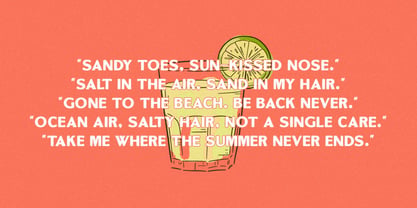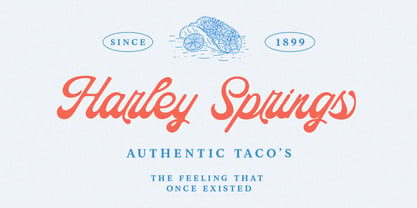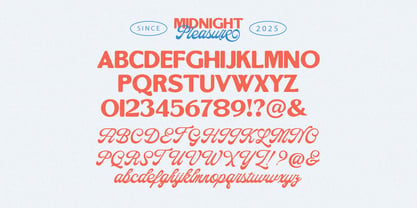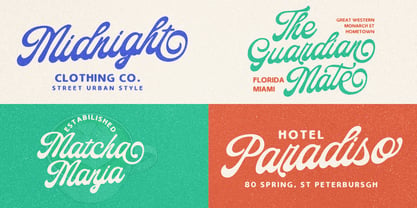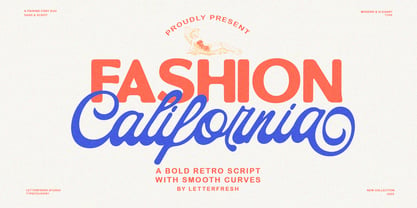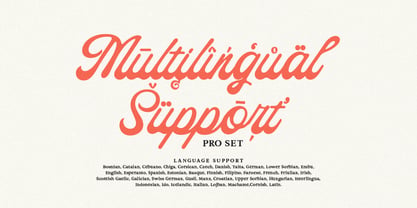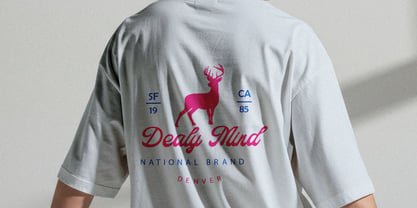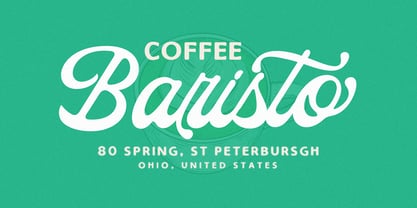
Fashion California Script
by Letterfreshstudio
The Fashion California Script Font Family was designed by Rizki Andika and published by Letterfreshstudio. Fashion California Script contains 2 styles and family package options. More about this family
Fashion California Script a sweet and smooth font duo! With its chunky, rounded sans and a flowing, handwritten-style script, this playful pair brings just the right mix of bold and friendly. Perfect for product labels, greeting cards, social media posts, branding projects, logo designs, packaging, quotes, and more.
Designers: Rizki Andika
Foundry: Letterfreshstudio